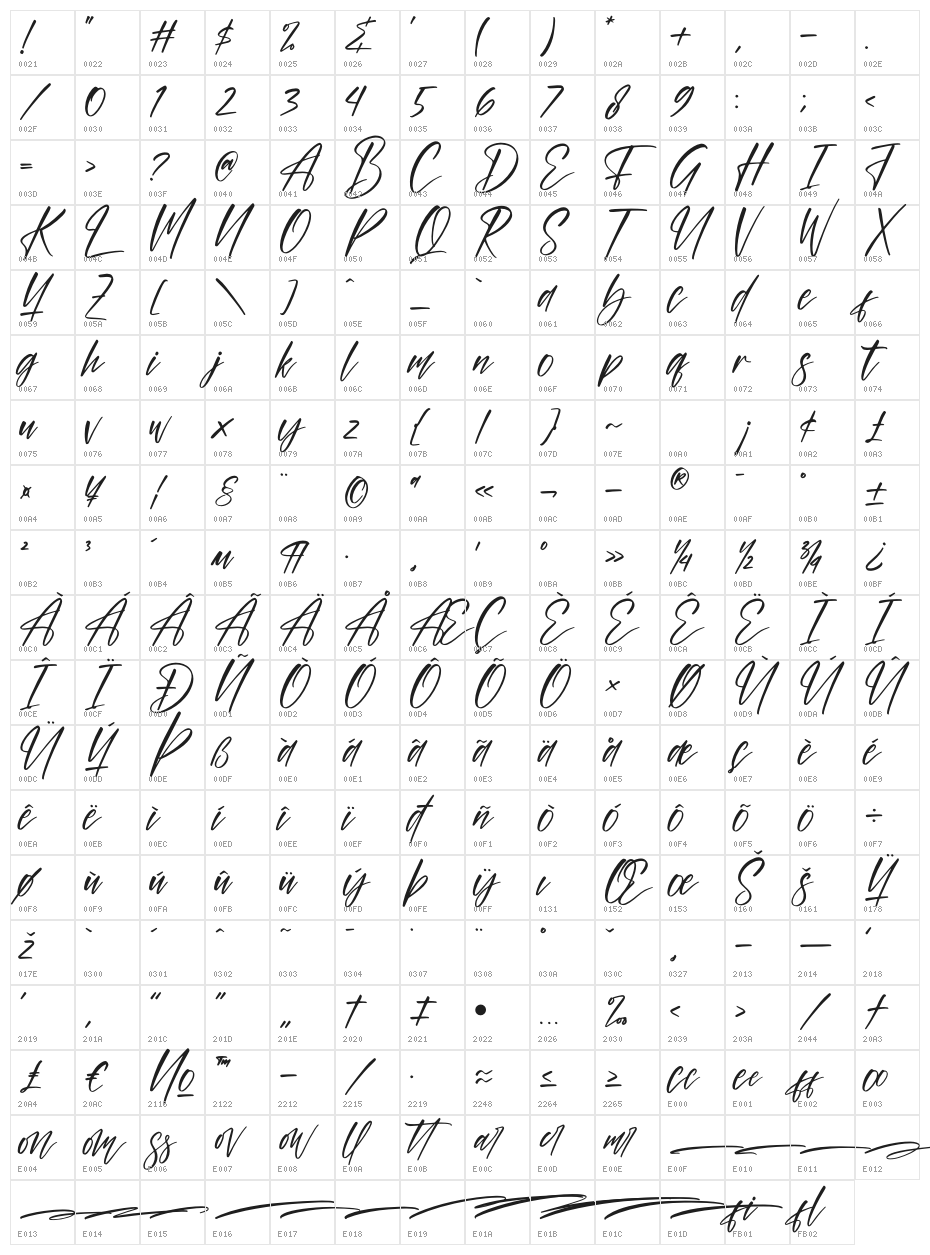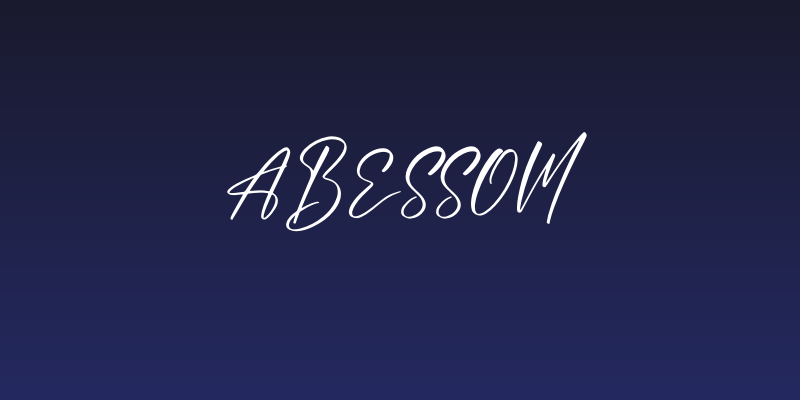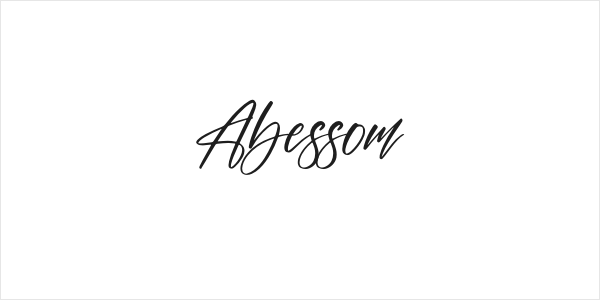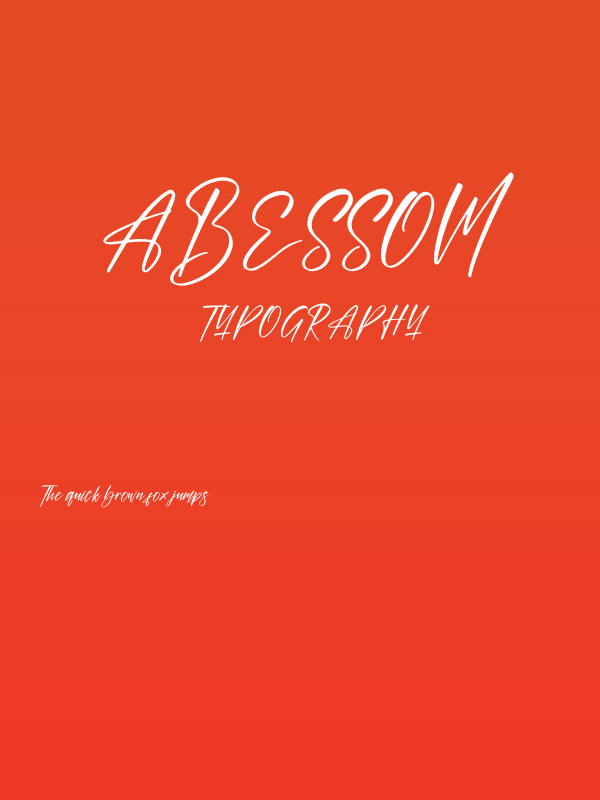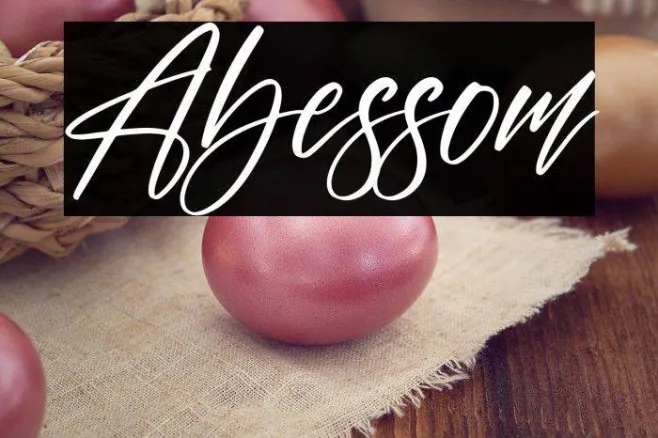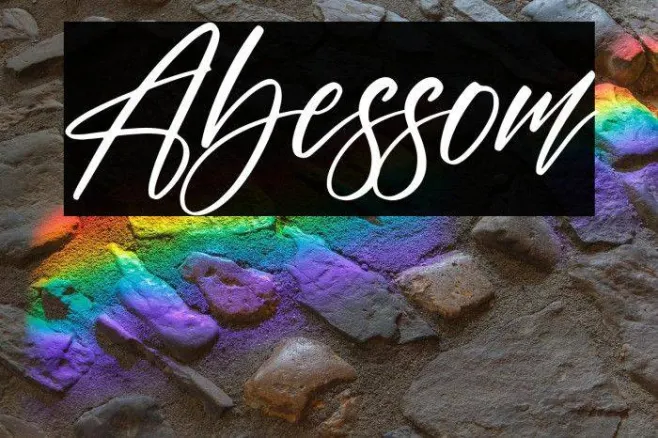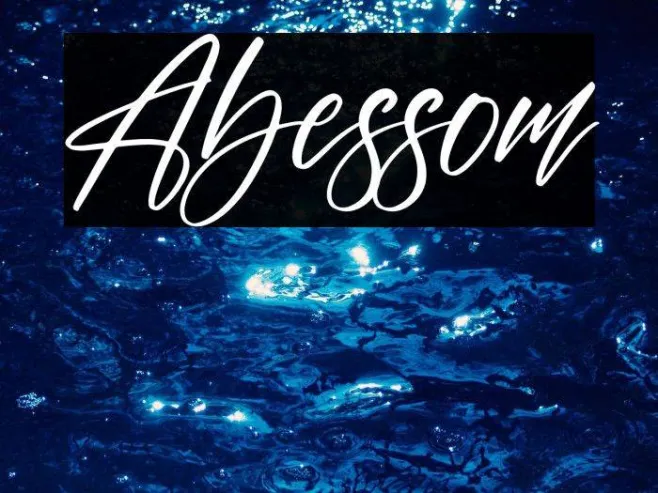
Abessom Font
Abessom Description
This font features a dynamic and expressive script style, characterized by its fluid and flowing letterforms. The uppercase letters are elegantly elongated with a slight slant, giving them a sense of movement and grace. The lowercase letters are more compact, with a bold and confident stroke that enhances readability while maintaining an artistic flair. The numbers and special characters are consistent with the overall style, offering a cohesive look. This font's handwritten appearance makes it ideal for creative projects that require a personal touch.
| Proposed Projects | Ideal for wedding invitations, greeting cards, branding, and social media graphics. |